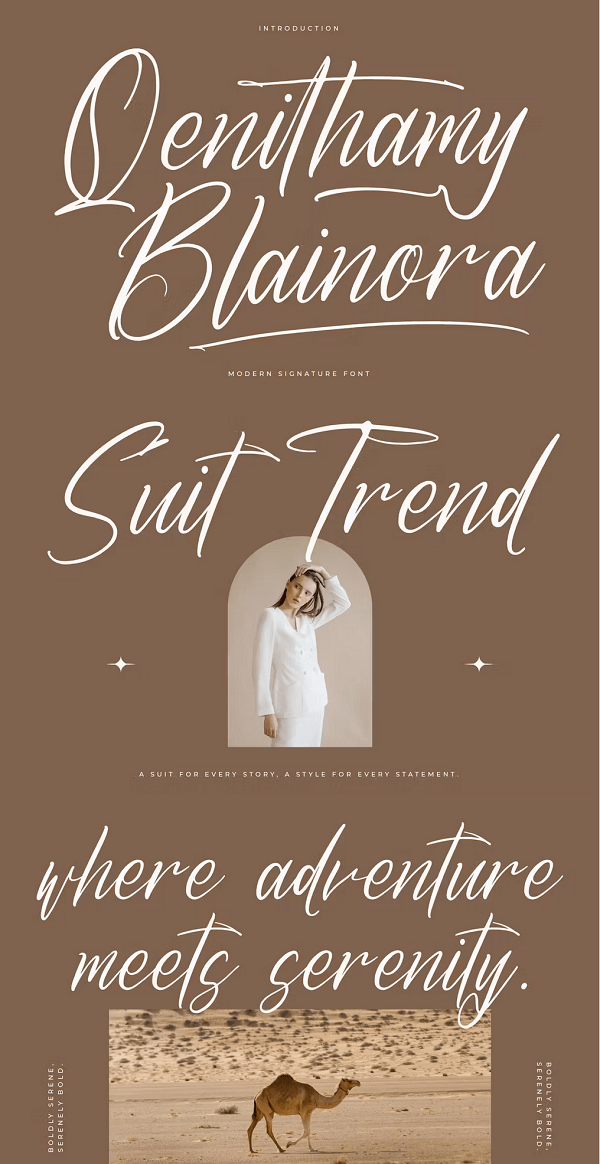
EE - Qenithamy Blainora Modern Signature Font C99BHQE
Hi ladies & gentlemen, this is one of our fonts suitable to complement your digital and printed creative products. This font is perfect for posters, social media posts, branding, personal projects, etc.